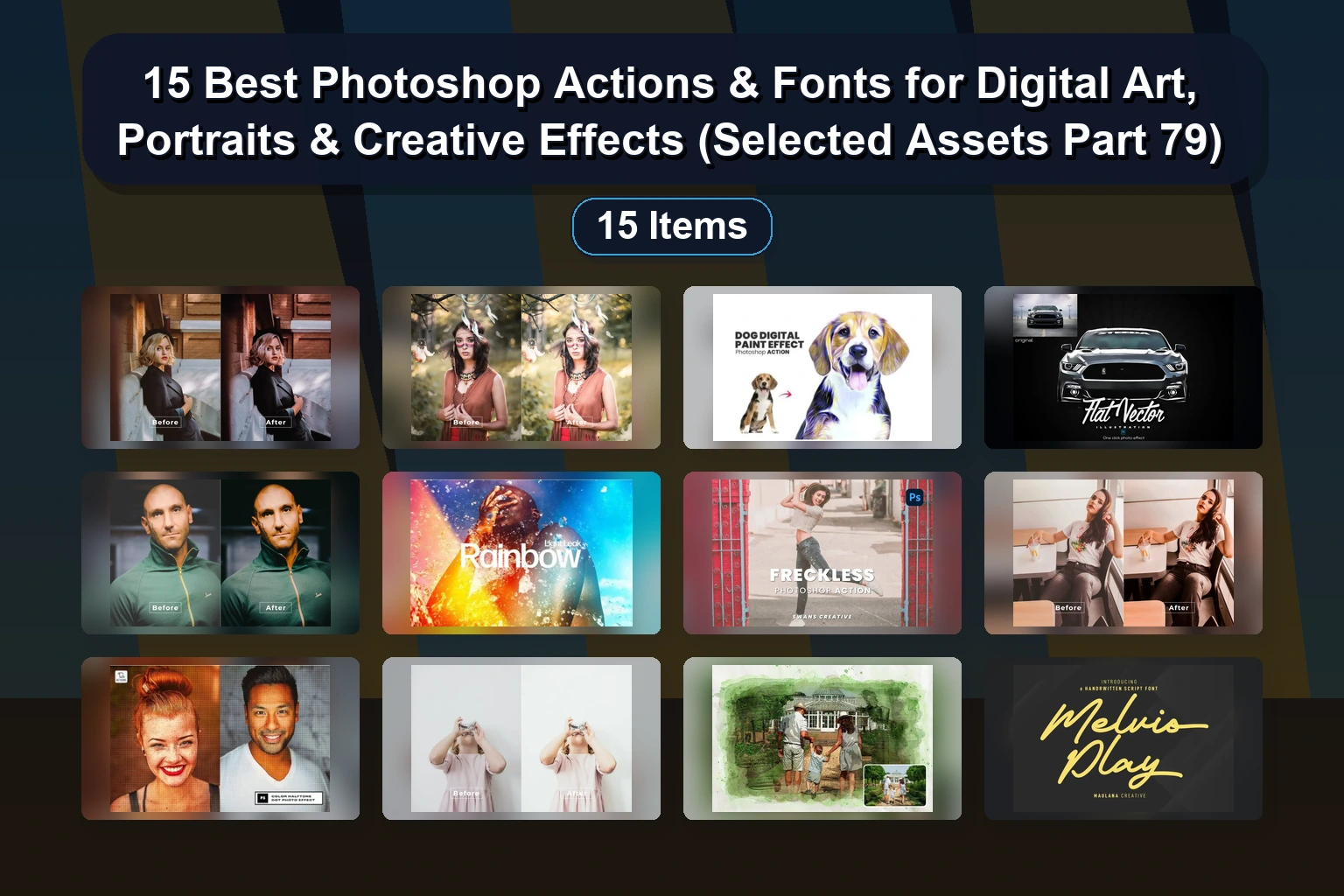
Welcome back to our Selected Assets series! In Part 79, we’ve curated 15 top-tier digital tools to elevate your creative workflow. From whimsical watercolor effects to professional flat vector illustrations, this collection is packed with instant-download Photoshop actions and fonts.
Whether you’re a portrait photographer, a graphic designer, or a digital artist, you’ll find powerful resources here. Discover the Watercolor Photoshop Effect 3Uu4Dhq, the vibrant Rainbow Light Leak Effect, and the elegant Melvio Play Signature Script Font — all designed to save you time and inspire your next project.
Why These Assets Are Essential for Your Creative Toolkit
Every product in this selection has been chosen for its versatility and ease of use. You don’t need to spend hours on complex techniques — each Photoshop action or font works with a single click. The Color Halftone Dot Photo Effect, for example, instantly adds a retro pop-art vibe, while the Pet Digital Paint Effect transforms your furry friend’s photo into a stunning hand-painted portrait.
Beyond speed, these assets offer professional-grade results. The Gold Liquid Photoshop Action delivers a luxurious metallic finish perfect for fashion or advertising projects. Meanwhile, the Flat Vector Illustration Photoshop Action by supremetones automates complex vector effects, giving you clean, scalable artwork in seconds. Whether you need to add freckles, spring hues, or a deep grey mood, this collection has you covered.
Featured Products in Selected Assets Part 79
1. Watercolor Photoshop Effect 3Uu4Dhq
Bring your photos to life with the Watercolor Photoshop Effect 3Uu4Dhq! This delightful digital download allows you to create enchanting watercolor effects in just a single click. Perfect for photographers, designers, and digital artists, this action replicates the authentic charm of watercolor painting styles, adding gorgeous brush strokes, rich textures, and vibrant color blending to your images. Instant access means you can start creating right away! 🎨✨
2. Pet Digital Paint Effect
Looking to create extraordinary pet digital paintings? This digital download offers instant access to the Pet Digital Paint Effect, a fantastic Photoshop action that turns your treasured pet photos into mesmerizing works of art! 🎨✨ Instantly transform ordinary images into vibrant, hand-painted masterpieces that showcase your pet’s unique personality and charm.
3. Rainbow Light Leak Effect For Photoshop
Bring a splash of color and creativity to your projects with the Rainbow Light Leak Effect for Photoshop! 🌈 This delightful digital download is ready for instant access, allowing you to enhance your images with vibrant light leak effects in just a few clicks. Perfect for photographers, graphic designers, and digital artists, this action adds a dreamy, artistic touch to portraits, landscapes, and any creative endeavor you can imagine!
4. Melvio Play – Signature Script Font
Introducing Melvio Play – Signature Script Font, a delightful digital download that offers instant access to a beautifully crafted typeface! 🎉 This font is designed to infuse your creative projects with elegance and personality. Whether you’re working on branding, logo design, invitations, or social media graphics, Melvio Play adds a natural, handwritten touch that enhances any design.
5. Color Halftone Dot Photo Effect
Ready to add some pizzazz to your images? The Color Halftone Dot Photo Effect is a delightful digital download that allows you to instantly transform your photos with vibrant, retro-inspired halftone dot patterns! 🎨✨ This amazing Photoshop action is perfect for digital artists, photographers, and designers who want to infuse their work with a playful pop art vibe, reminiscent of classic comic book styles.
6. Flat Vector Illustration Photoshop Action
Are you ready to bring a burst of creativity to your designs? The Flat Vector Illustration Photoshop Action is here to sprinkle some magic on your artwork! 🎨 This digital download provides instant access to a powerful tool that effortlessly transforms your photos and designs into stunning flat vector-style illustrations. Perfect for designers, photographers, and digital artists alike, this action streamlines your creative process by automating complex vector effects, giving your visuals a clean, modern, and artistic flair.